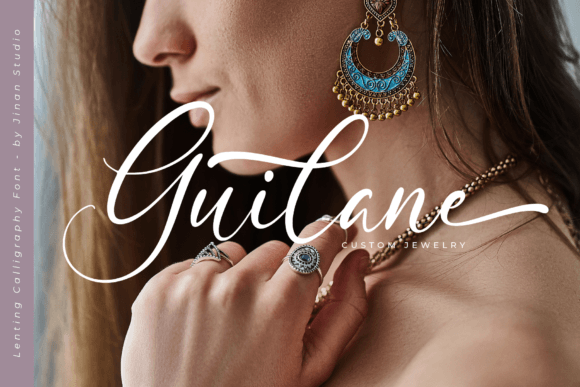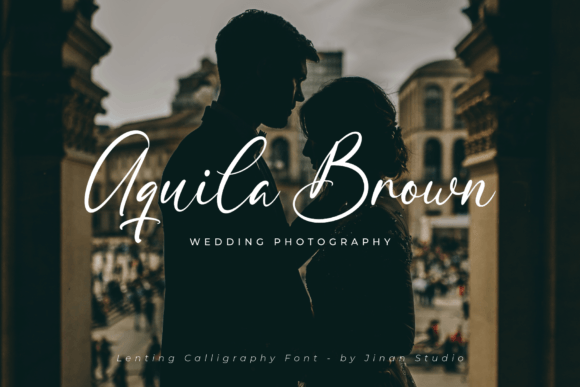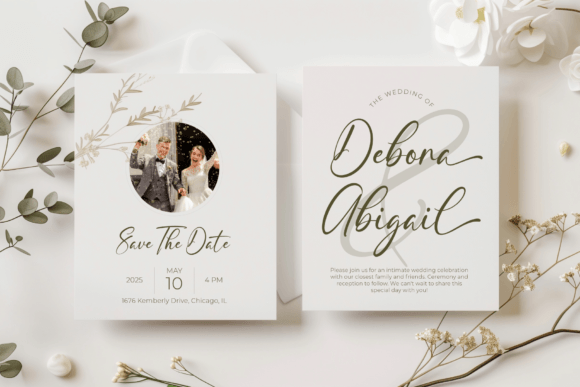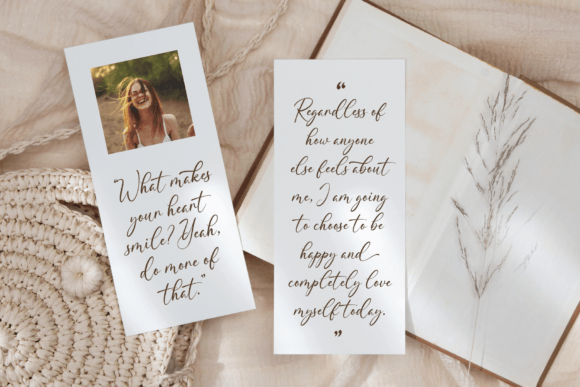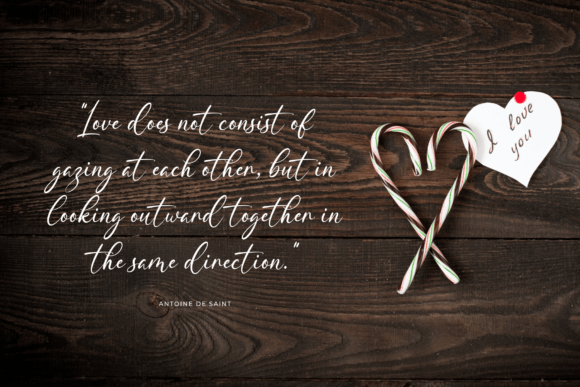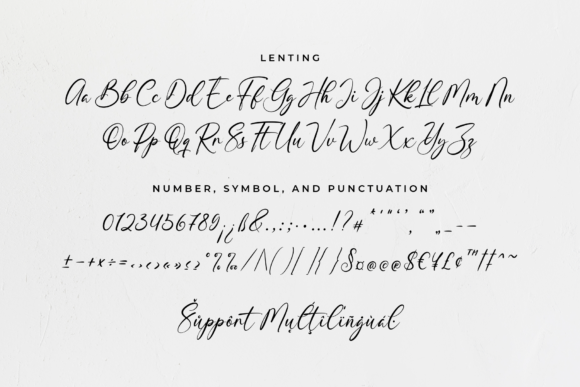
Introduction to Lenting Font
Imagine yourself lost in a sea of creative possibilities, and your eyes land on a single design element that sparks inspiration. For many designers, this moment is the starting point of a beautiful project. It’s the instant when the perfect font can elevate an entire concept, transporting it from mere idea to stunning reality.
Enter the Lenting Font, a masterfully crafted calligraphic script that embodies the essence of classic elegance. Its fluid strokes and flowing curves are a designer’s dream come true, offering an unparalleled level of sophistication that can transform any creative project. Whether you’re working on a high-end branding campaign or a whimsical wedding invitation, the Lenting Font is an invaluable design resource that’s sure to leave a lasting impression.
Key Features of Lenting Font
- High-quality design resource for creative projects, offering a unique and stylish aesthetic.
- Features a transparent background, providing designers with the freedom to place the font on any image or background.
- Designed to be highly legible, making it perfect for use in a variety of creative projects, from print to digital media.
Honest Review: Lenting Font
I recently stumbled upon the Lenting Font while searching for a unique design resource for a creative project. As a designer, I was excited to give it a try.
- High-quality design with smooth lines and elegant curves
- Transparent background makes it easy to use in various design scenarios
- ⚠️ Limited character set, which may not be suitable for extended text-based projects
- ⚠️ Not as versatile as other fonts, which may limit its use in certain design contexts
Overall, I’m impressed with the Lenting Font’s high-quality design and transparent background. While it may have some limitations, it’s still a great resource for designers looking for a unique and elegant font for their creative projects.
Lenting Font
Tips for Getting the Most Out of Lenting Font
For optimal results, use Lenting Font in combination with other design elements to create a cohesive look.
Lenting Font is suitable for a variety of projects, including:
- Marketing materials.
- Branding campaigns.
- Graphic designs.